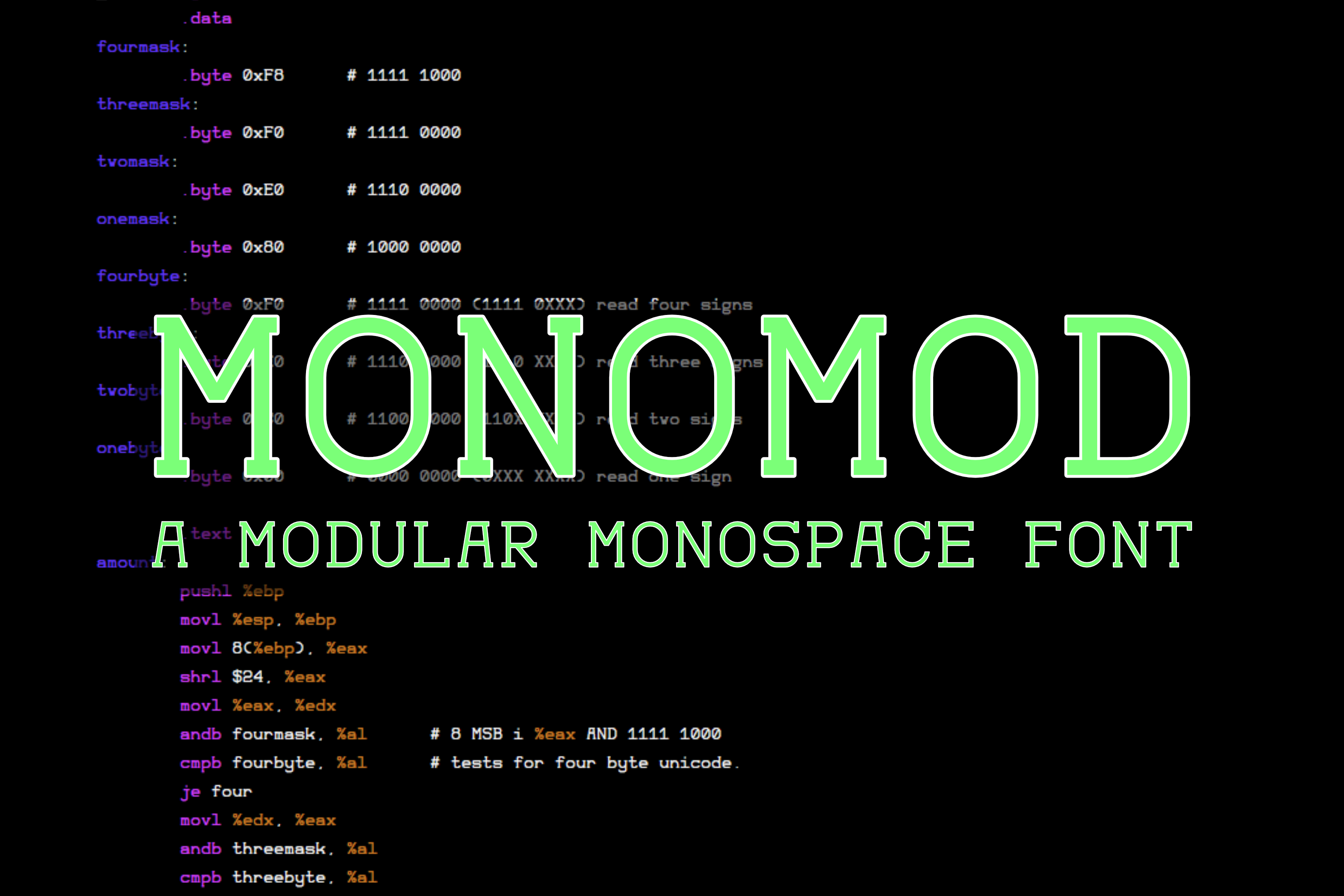
Monomod Font: Modern Monospace for Coding & Minimalist Design
About the Monomod Font
Get ready to be inspired by Monomod Font, a fresh and dynamic typeface for modern creators. Monomod is simple modular monospace font.
Its clean, modular design makes Monomod ideal for headlines, coding displays, and technical documentation where clarity and precision are paramount. It also works well in branding applications requiring a modern, slightly industrial aesthetic, such as technology companies or minimalist product packaging. However, its monospace nature makes it unsuitable for body text or long-form content; readability suffers in extended paragraphs.
For a balanced pairing, consider using a humanist sans-serif like Open Sans for body copy, creating a contrast that maintains legibility without jarring stylistic shifts. Alternatively, a classic serif like Garamond could add a touch of sophistication for supporting text alongside Monomod’s clean lines, creating a refined yet accessible feel. Avoid pairing it with overly decorative scripts.
Monomod projects a personality that is both modern and functional, its simplicity conveying efficiency and precision. It’s a strong choice for brands emphasizing technological innovation or straightforward communication.